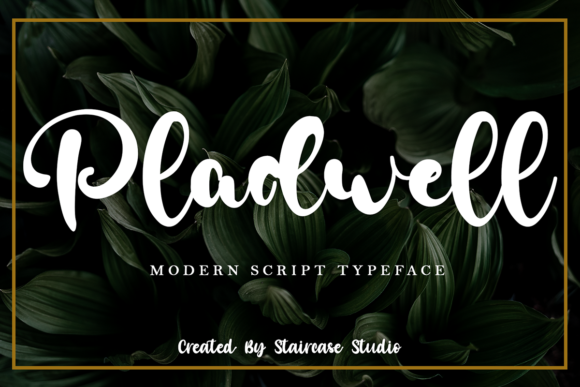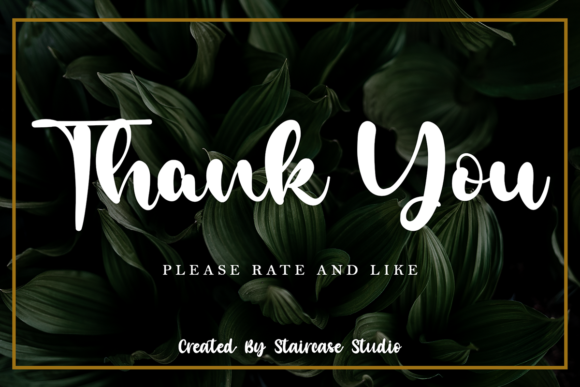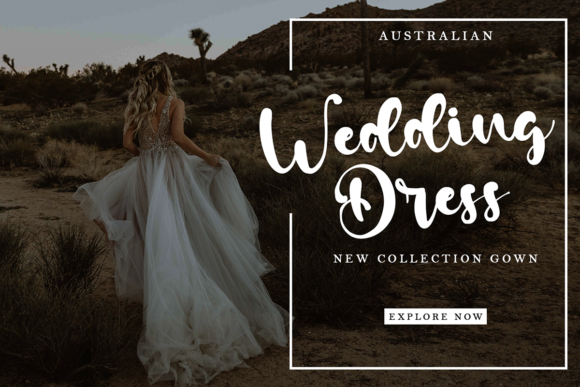
About Pladwell Font
Pladwell is a modern and bold handwritten font. A collection of letters and numbers suitable for your projects. It is also great for logotypes, branding designs, logos, digital lettering arts, t-shirt/apparel, posters, magazines, signs, advertising designs, and so much more.